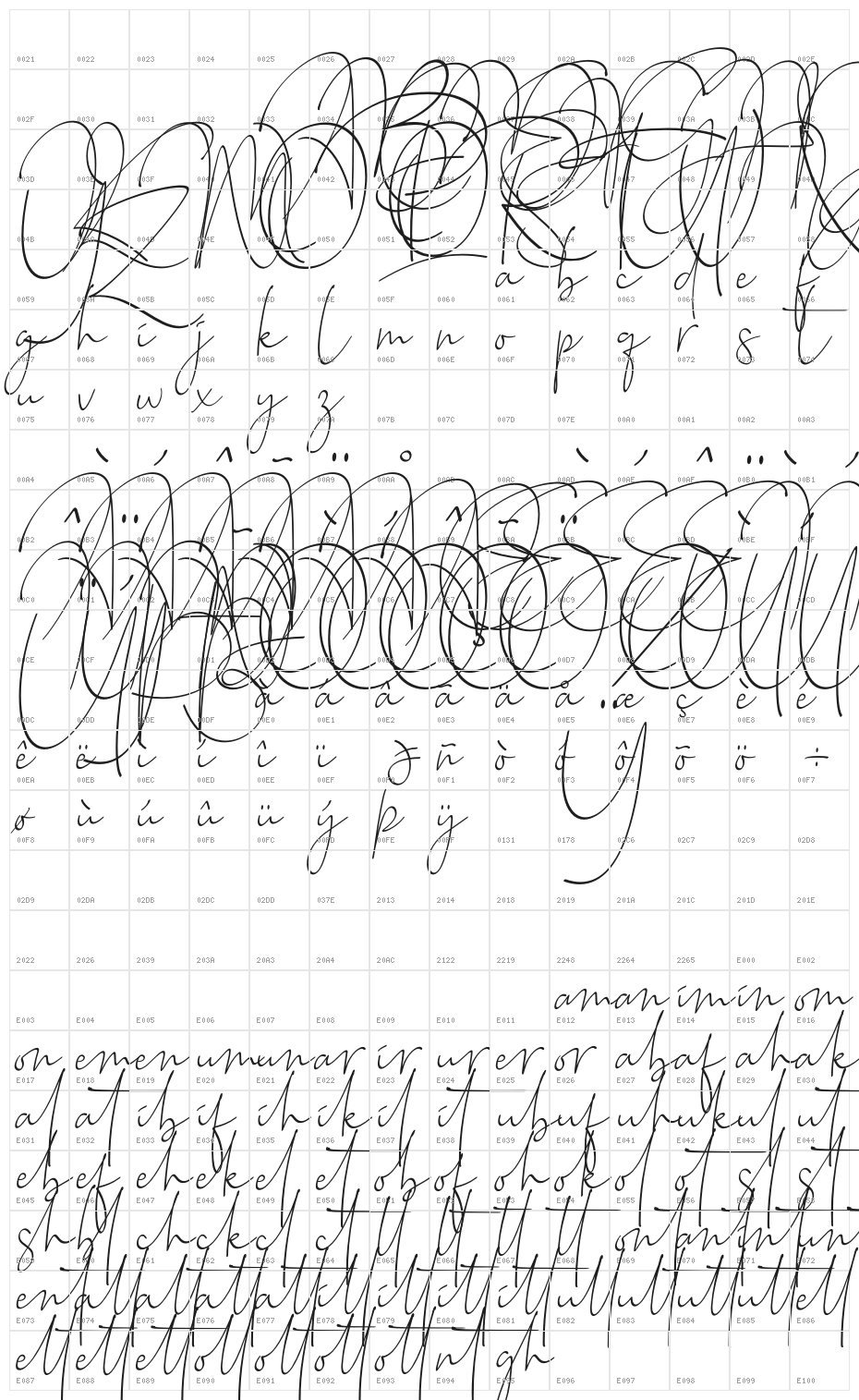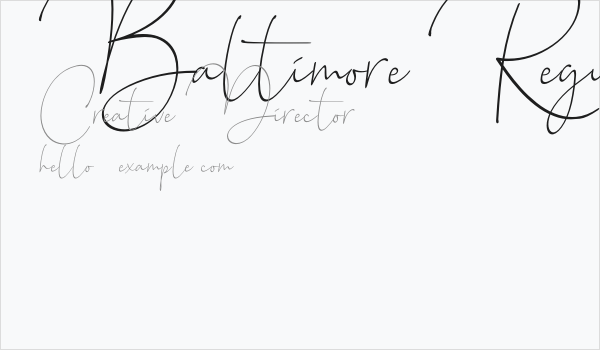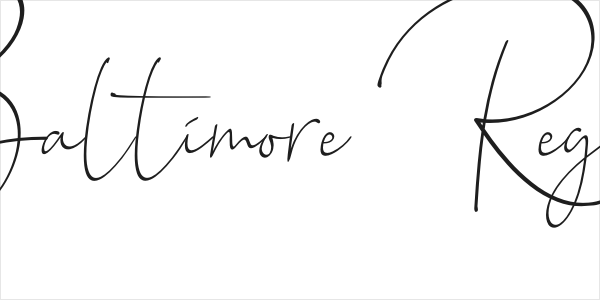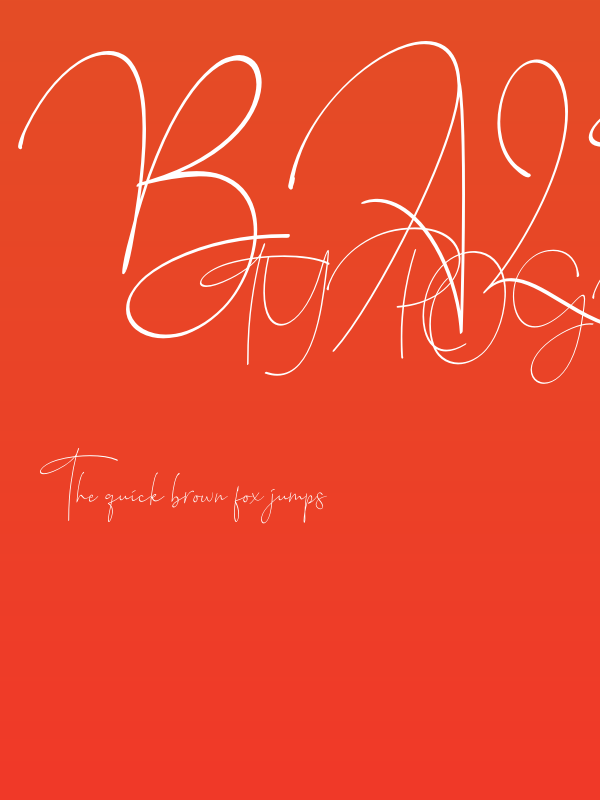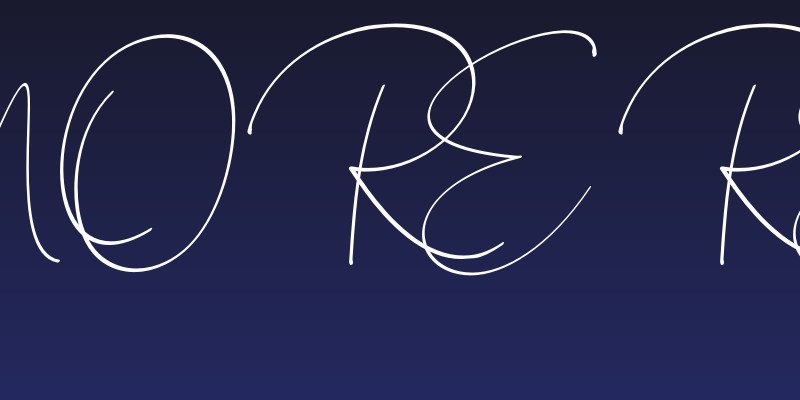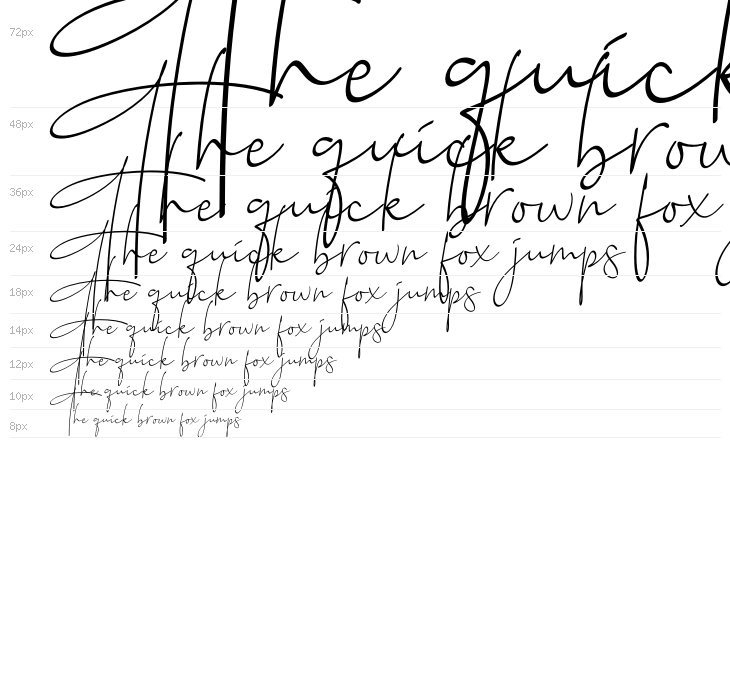
Baltimore Regular Font
Baltimore Regular Description
This font features an elegant and flowing script style, characterized by its graceful curves and loops. The uppercase letters exhibit a sophisticated flair with elongated strokes and smooth transitions, while the lowercase letters maintain a consistent fluidity, enhancing the overall aesthetic. The font's delicate lines and artistic swirls give it a refined and stylish appearance, making it suitable for formal and decorative applications. Its handwritten quality adds a personal touch, perfect for invitations, branding, and creative projects that require a touch of elegance and sophistication.
| Use Case | Invitations, Branding, Decorative |
| Proposed Projects | Ideal for wedding invitations, elegant branding, personal stationery, and decorative signage. |